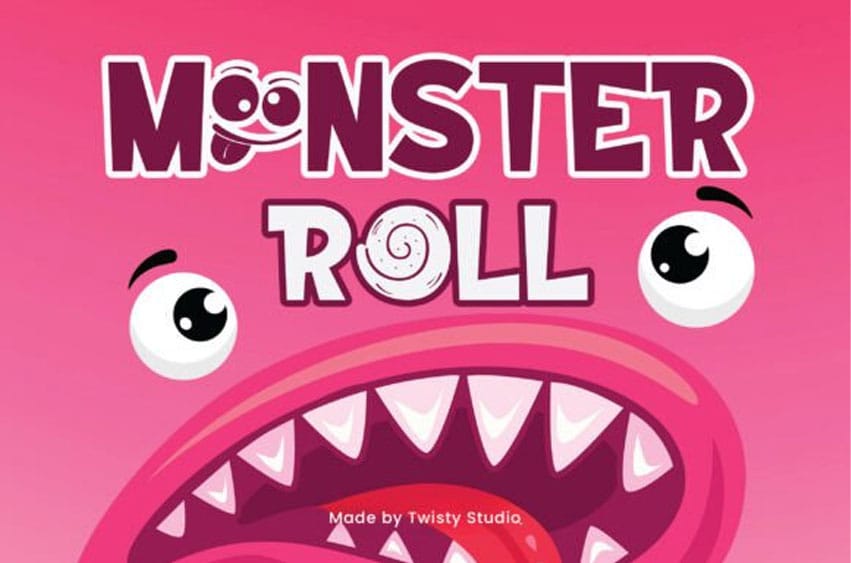
Monster Roll Font
Monster Roll Font is a bold and quirky display font that’s full of character. With playful shapes, goofy eyes, and a monster-sized personality, it’s perfect for kids’ books, games, toy branding, or any design that needs a wild, fun vibe.
Let your creativity roar with MonsterRoll — big, silly, and impossible to ignore!